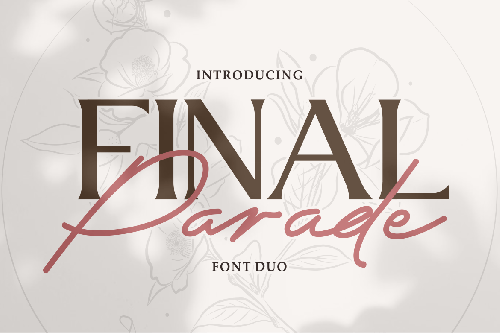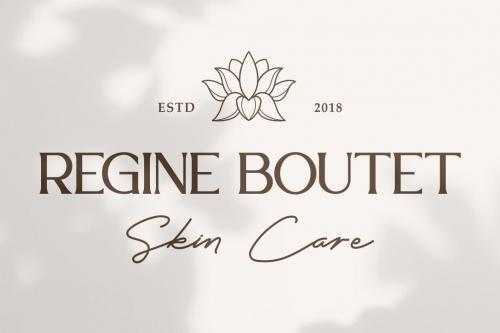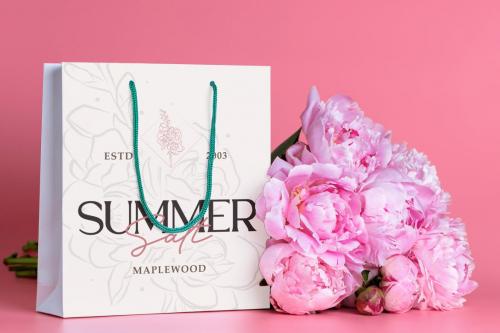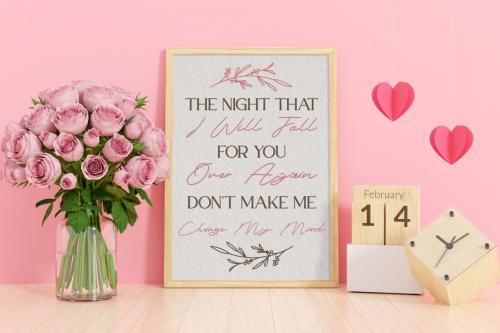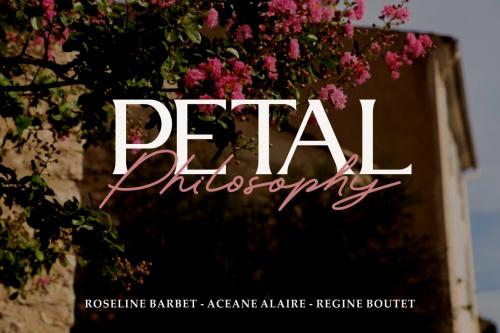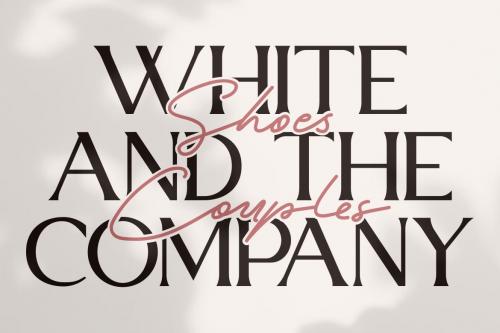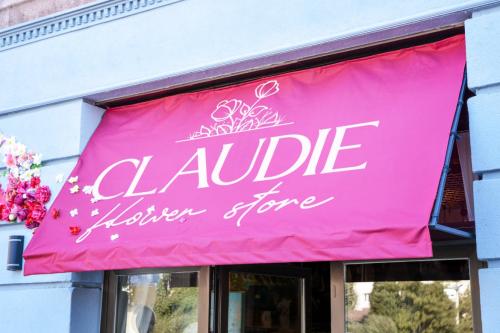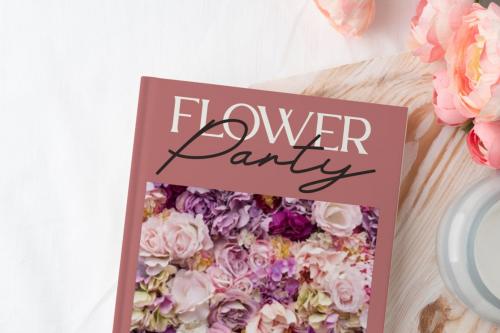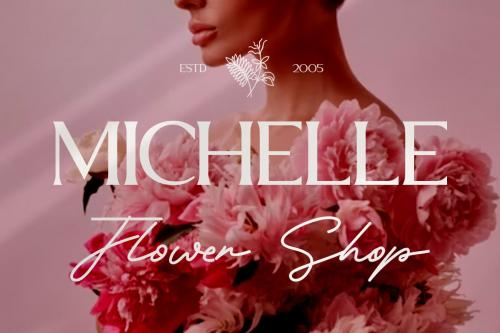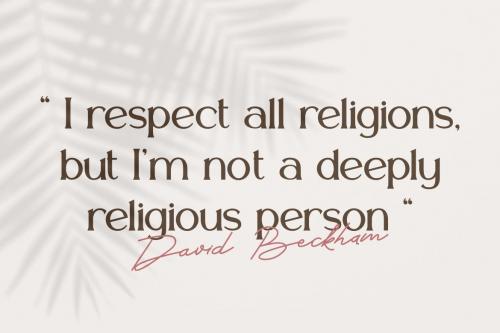
决赛 – 经典与优雅字体 duo
The Final Parade - Luxury And Elegant Font Duo is a harmonious combination of two fonts that complement each other beautifully. The first font is a luxurious serif font with strong and commanding characters, while the second font is an elegant signature font with long swashes at the end of each letter, adding an extra touch of sophistication. These fonts can be used individually for distinct purposes or together as a duo, offering versatility for various design needs. Ideal for quotes, logos, product packaging, business names, wedding materials, invitations, greeting cards, posters, and magazines, this font duo adds a touch of luxury and elegance to any project.